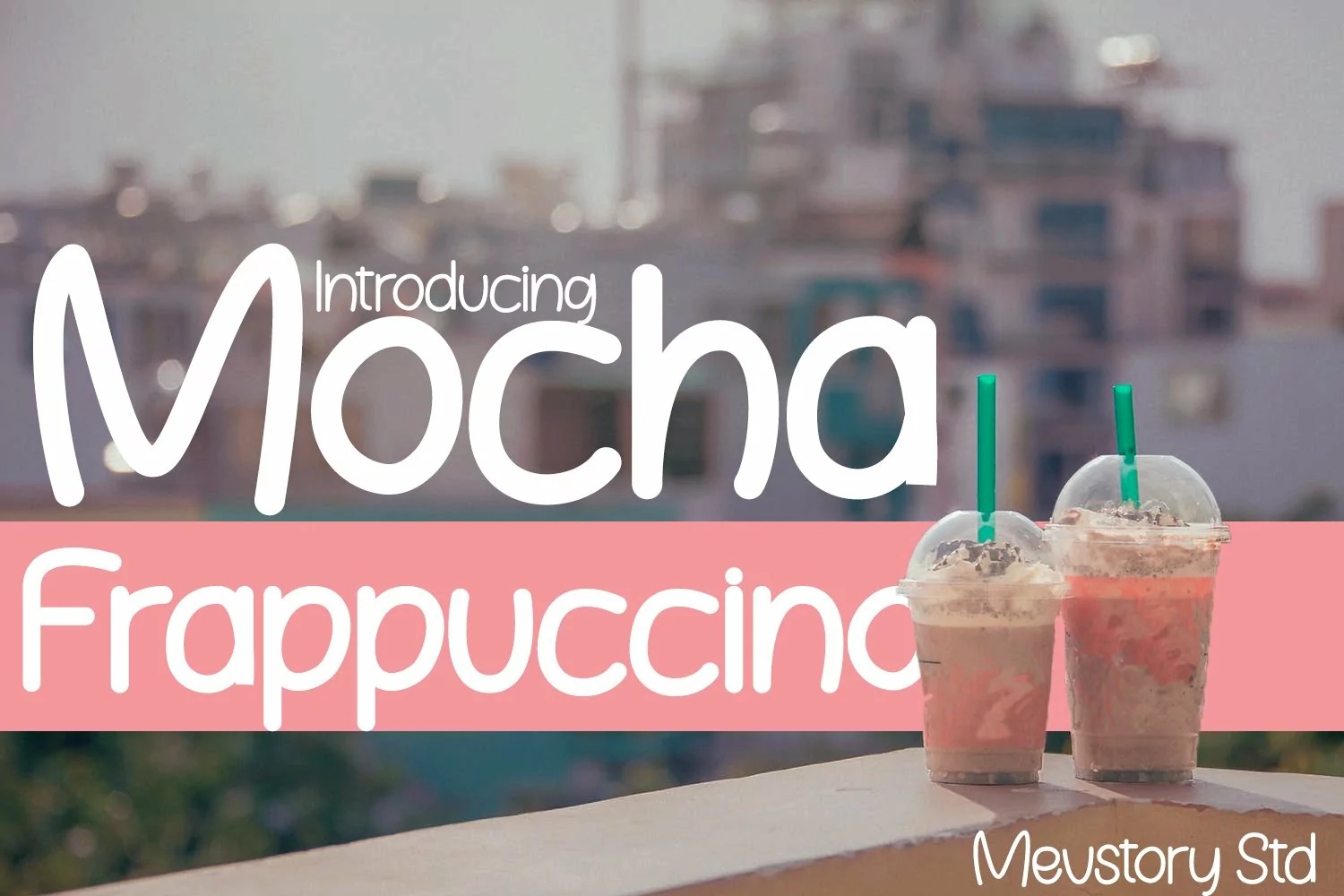
Mocha Frappuccino is a bubbly font with a great casual handwritten feel. When your design calls for a fun vibe, or an added lively touch, then Mocha Frappuccino is just what you need. Thick smooth strokes makes this font easy to read and fun to use!